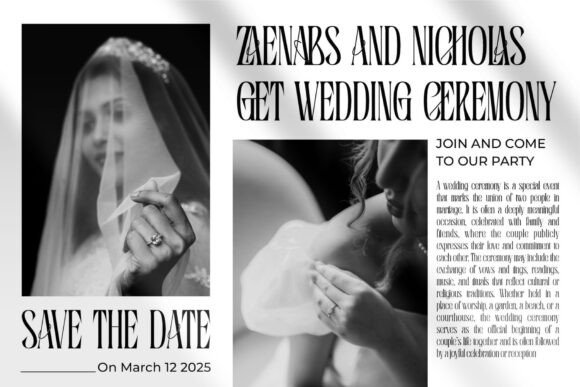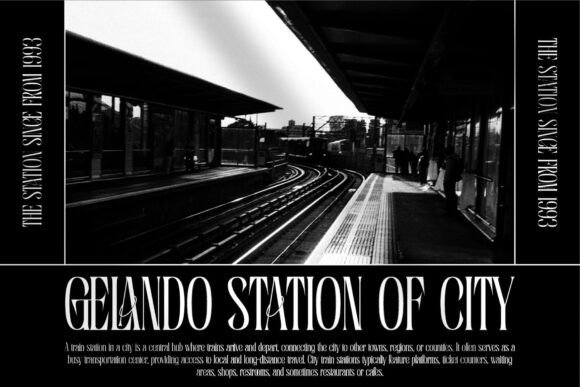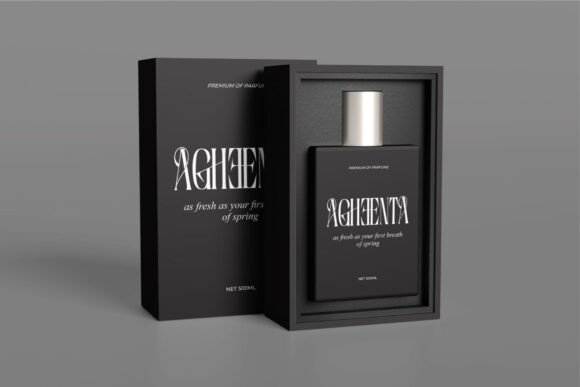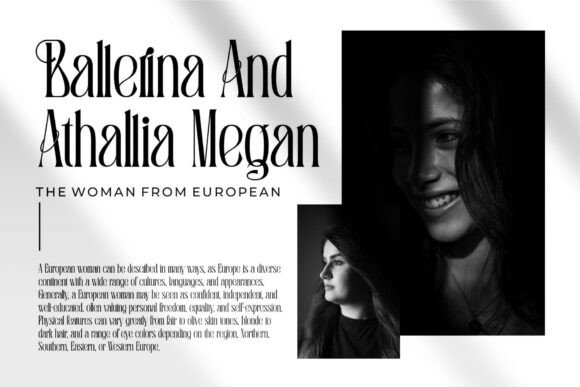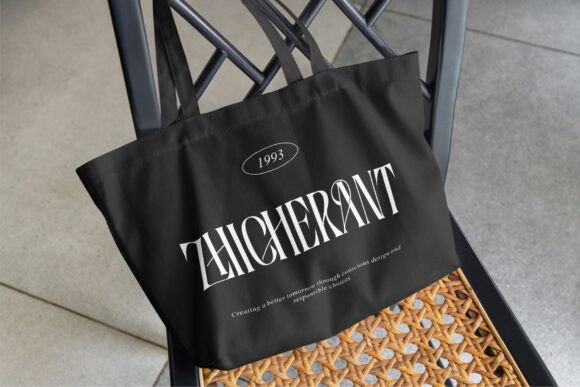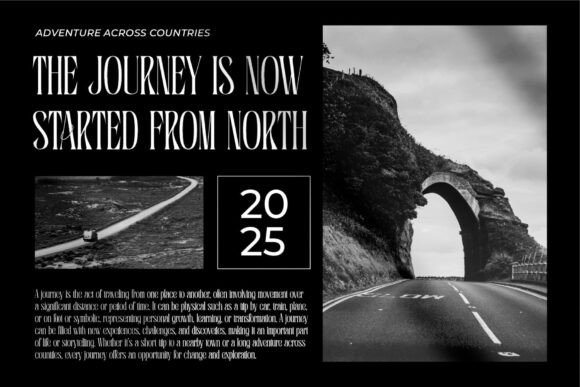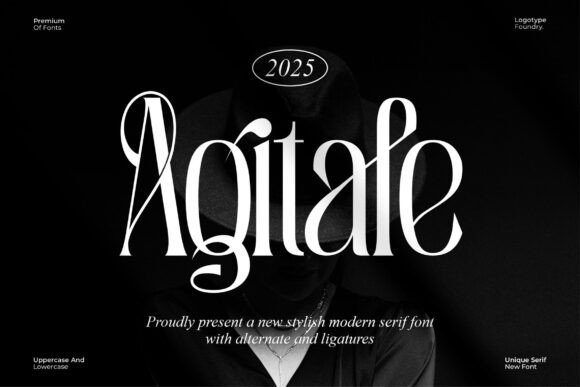
The Perfect Blend of Tradition and Modernity: Unveiling Agitafe Font
As designers, we’ve all been there – staring at a blank canvas, trying to conjure up the perfect font to bring our creative vision to life. It’s that moment of frustration, followed by excitement, when we stumble upon the perfect match. For those seeking a sophisticated yet elegant font, we’re excited to introduce you to Agitafe Font, a game-changing serif font that effortlessly blends traditional elegance with a modern attitude.
This stunning font is perfect for designers looking to elevate their branding, logos, fashion layouts, and wedding designs. With high-contrast strokes, fluid alternates, and sophisticated ligatures, Agitafe Font is an invaluable asset for any creative project. Whether you’re a seasoned designer or just starting out, this versatile font is sure to leave a lasting impression.
Agitafe Font Key Features
- Font Family: Agitafe comes in multiple font styles, including regular, bold, italic, and bold italic.
- Character Set: Supports a wide range of languages, including Latin, Cyrillic, and Greek alphabets, making it suitable for international designs.
- Unique Characteristics: Agitafe features a unique blend of modern and vintage elements, with a distinctive geometric shape and a touch of hand-drawn feel, making it ideal for creative and artistic designs.
Agitafe Font Review
Overall, I’m quite impressed with the Agitafe Font. It has a lot of great qualities that make it stand out from other fonts. ✨ Firstly, its modern design makes it perfect for contemporary branding and digital projects. It’s also highly legible, making it suitable for long blocks of text. Another thing I love about this font is its wide range of weights, from light to bold, which gives users a lot of flexibility when designing.
Another great feature of Agitafe Font is its versatility. It works well in both digital and print applications. Additionally, the font’s subtle geometric elements give it a unique touch, making it stand out in a crowded market. ✨ I also appreciate the fact that the font is highly customizable, allowing users to fine-tune the spacing and size to fit their specific design needs.
- ⚠️ Limited language support: While the font is great for English and other Latin-based languages, it may not be suitable for languages that require more complex scripts or character sets.
Overall, I think Agitafe Font is a great addition to any designer’s toolkit. Its modern design, versatility, and customizability make it a great choice for a wide range of projects. While it may have some limitations, I believe these can be easily worked around, and the benefits of using this font far outweigh its drawbacks.
Agitafe Font is ideal for:
- Creating eye-catching headlines and titles
- Designing custom logos and graphics
- Adding a touch of sophistication to presentations and documents